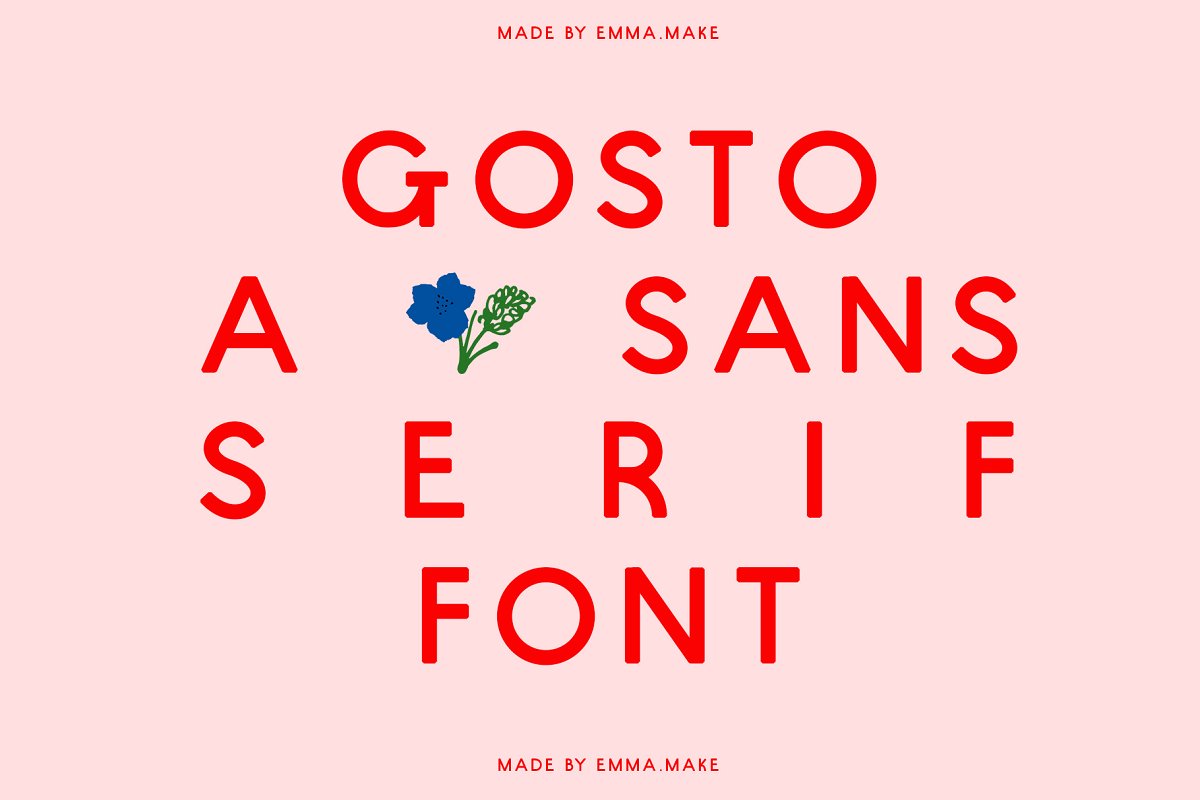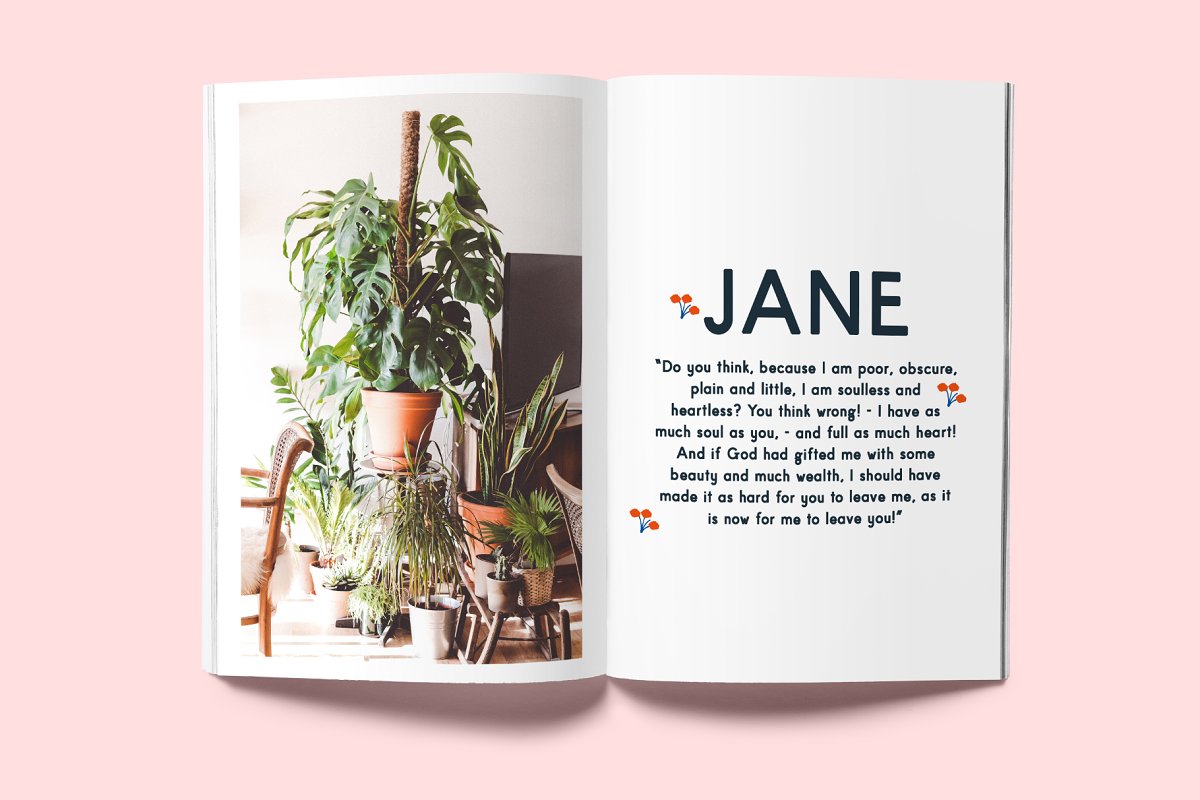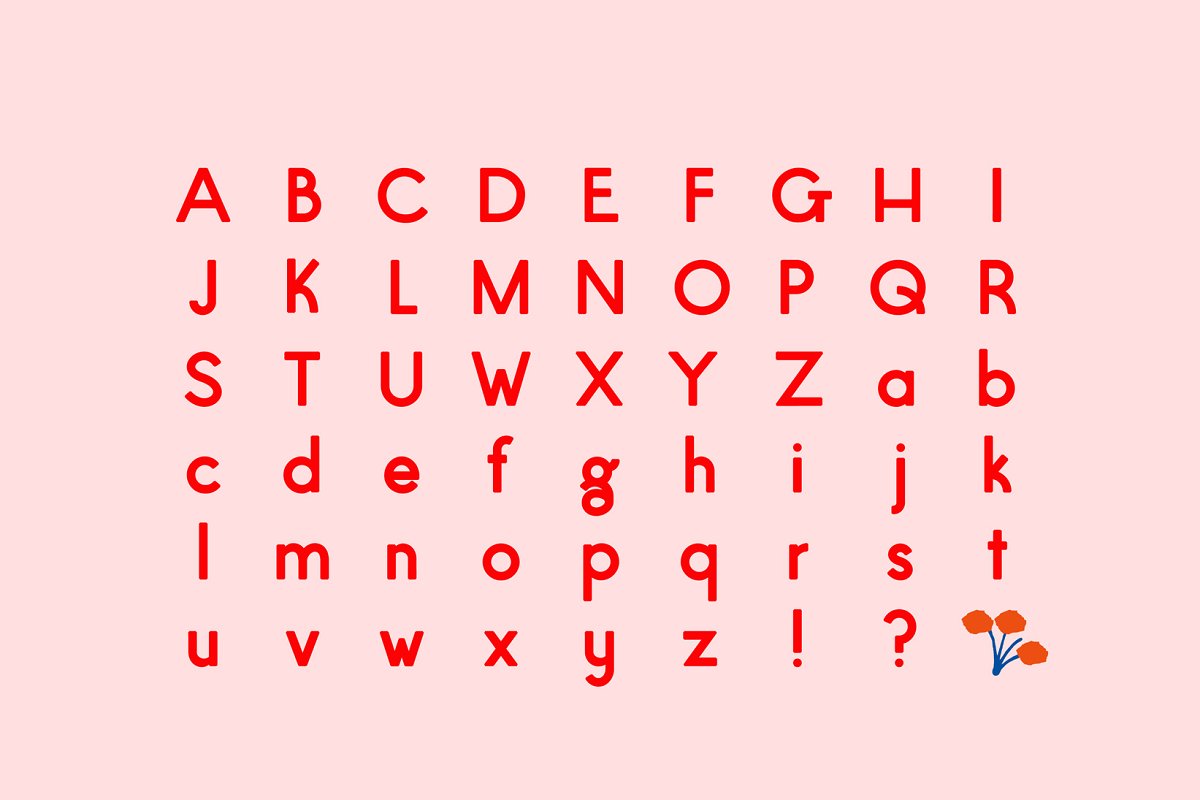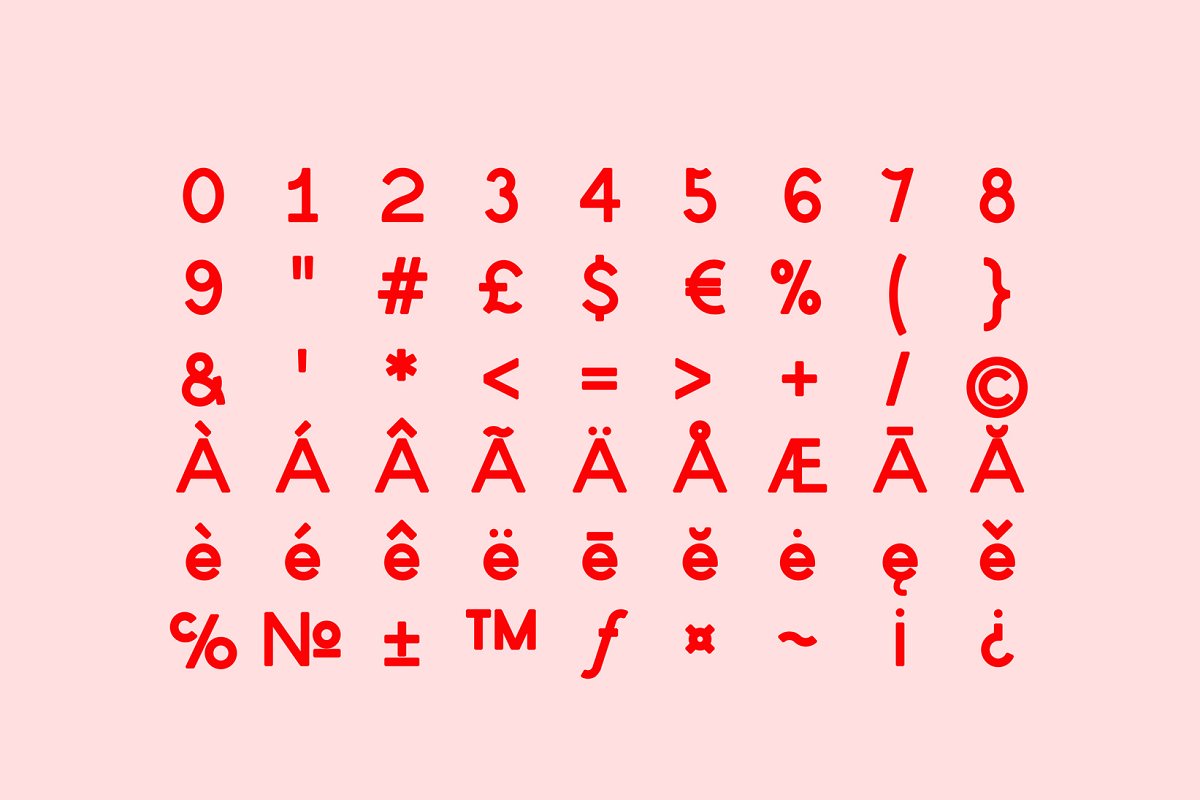
About the Gosto A Sans Serif Font
Gosto fontDeveloped from Paper Orange (https://creativemarket, com/emma, make/1939429-Paper-Orange-Font-Family), Gosto is a 2 weight sans serif font ideal for contemporary work somewhere in between formal and fun, The File2 weights (regular and light)OTF files formatpunctuation, symbols, numbersSupports: Danish, Dutch, Finnish, Flemish, German, Icelandic, Irish, Italian, Norwegian, Portuguese, Spanish, Swedish, Basque, Breton, Catalan, Croatian, Czech, Esperanto, Estonian, French, Frisian, Hungarian, Latvian, Lithuanian, Polish, Provençal, Romanian, Sami, Slovenian, Sorbian, Turkish, Welsh, and many othersWork is Copyright ©2017 Emma Hall